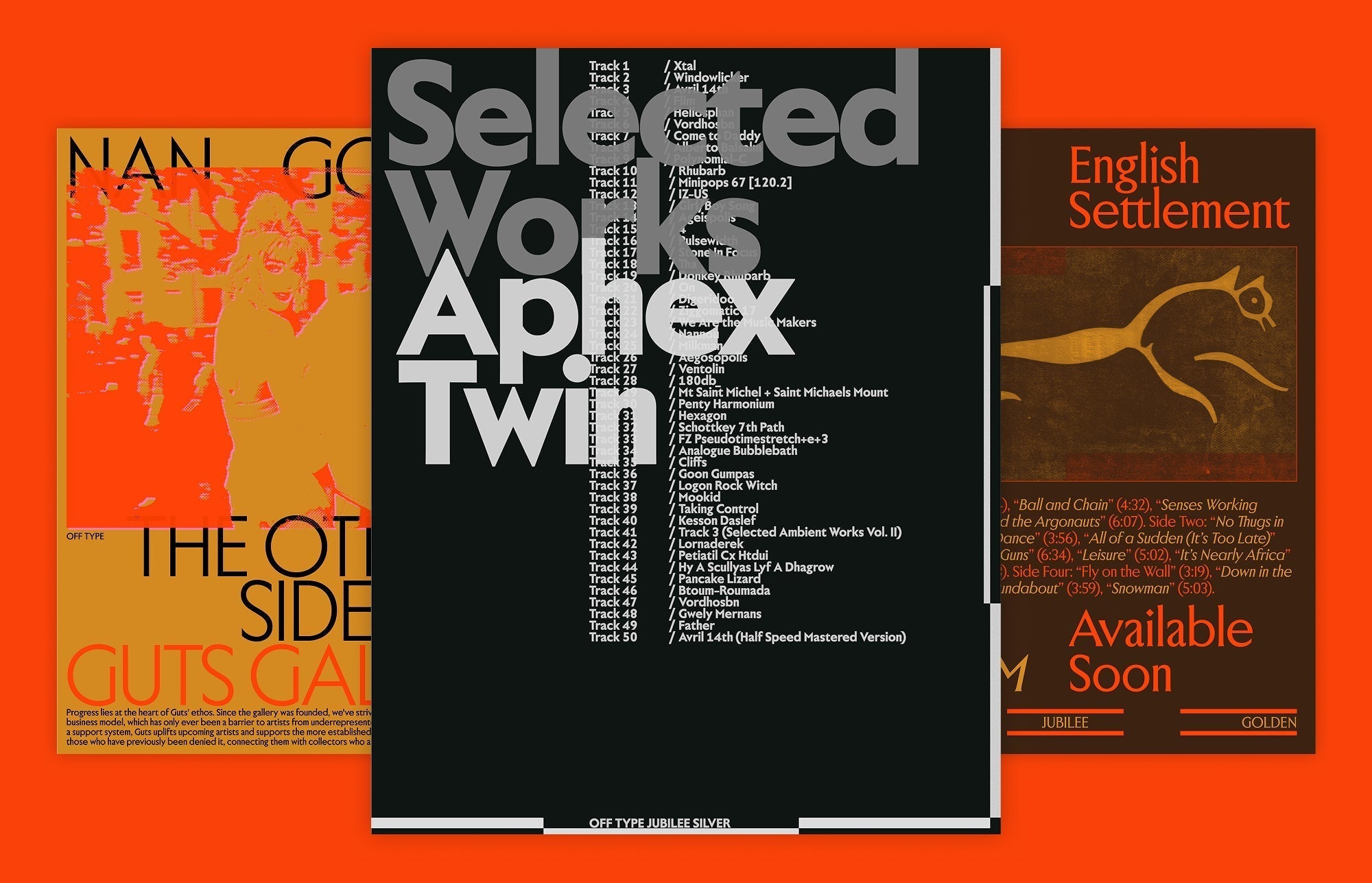
What started as a conceptual experiment – a single style shifting from sans to serif – has since evolved into one of the most ambitious and idiosyncratic type systems around.
OT Jubilee’s new 2.00 update from Off Type by designers Valerio Monopoli and Piero Beninato is a gloriously eccentric expansion of both the type family and the Pangram typographic network.
Already a standout on its initial release in 2023, Jubilee captured attention with its genre-defying transitions, sly British references, and typographic playfulness. But now, with a full suite of weights, italics, and stylistic refinements, it’s grown into something a little more mature and even more versatile, more expressive, and more complete.
OT Jubilee was originally built around a single regular weight that moved fluidly along a custom serif axis. Now, that core idea has been dramatically expanded, introducing seven weights, from Extralight to Extrabold, available across all six steps of the original serif spectrum: Silver, Ruby, Golden, Diamond, Sapphire, and Platinum. Each of these mini families now includes upright and italic styles, which can be purchased individually or explored fluidly through its function as a variable typeface system.
Now, with such an expanded full family, it might be tricky to know exactly what you want, what you need, or how Jubilee can best serve you. So, here’s a breakdown of each style and how it’s intended to be used.
Silver (Serif 0)
A clean, humanist sans-serif. The most minimal and neutral cut in the family, Silver works well in digital, UI, or identity systems where clarity is key.
Best for: Subheads, navigation, branding, digital interfaces Character: Clear, structured, understated.
Ruby (Serif 8)
Begins introducing subtle serif-like details. Feels warmer and slightly more traditional without losing the simplicity of a sans.
Best for: Packaging, signage, short paragraphs. Character: Soft, transitional, accessible.
Golden (Serif 18)
A true hybrid – neither fully sans nor fully serif. Golden is Jubilee ’s most versatile style, with readable forms and a touch of historical character.
Best for: Identity work, editorial, general-purpose design Character: Balanced, flexible, legible.
Diamond (Serif 28)
The original Jubilee release. Diamond is a high-contrast serif with distinctive quirks and calligraphic influence. Still highly readable but more stylised
Best for: Headlines, posters, titles Character: Expressive, distinctive, characterful.
Sapphire (Serif 38)
A strong, confident serif with more pronounced details and weight. Ideal for print-heavy or traditional editorial settings.
Best for: Books, magazines, formal documents. Character: Structured, serious, legible.
Platinum (Serif 50)
Jubilee at its most decorative and display-oriented. High contrast, sharp serifs, and plenty of visual impact.
Best for: Logos, mastheads, covers, display typography. Character: Ornate, dramatic, bold.
Jubilee is a flexible system for designers who want both a practical workhorse and a characterful display tool – all within one typographic structure.